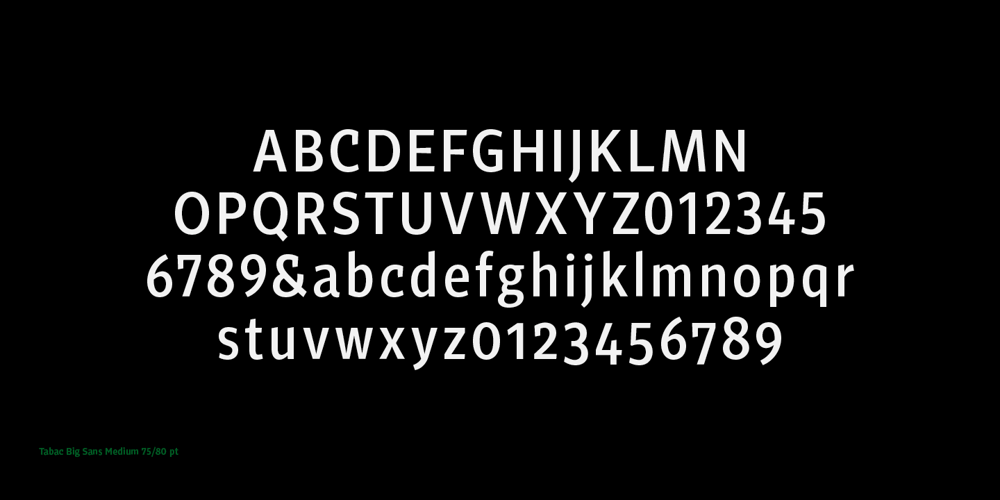
Tabac Big Sans Font Family was designed by Tomáš Brousil and published by Suitcase Type Foundry. Tabac Big Sans contains 16 styles and family package options. Those who have grown tired of text typefaces insensitively blown up to the size of a poster or a building facade should from time to time try out extreme display styles, which are designed precisely for this purpose. They look best in dimensions from around 32 point out to infinity, and they rise to the occasion when a strong impression is necessary. This is especially true for the extreme weights Hair and Black, which don’t allow for any compromise. The sharp hairline and brutal contrast of the strokes test the most extreme possibilities, without having readability suffer in continuous text, as is characteristic for all the typefaces of the Tabac superfamily. Tabac Big Sans has the distinction of having most of its styles hold up not only in giant sizes, but also in smaller texts, where it’s an obedient little doggie. It actually works like a narrowed linear grotesk with an increased x-height. There’s no limit to fantasy.